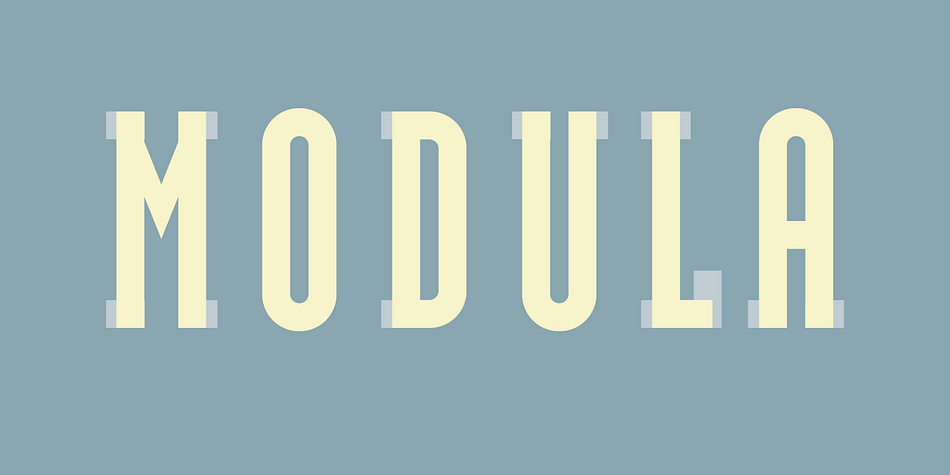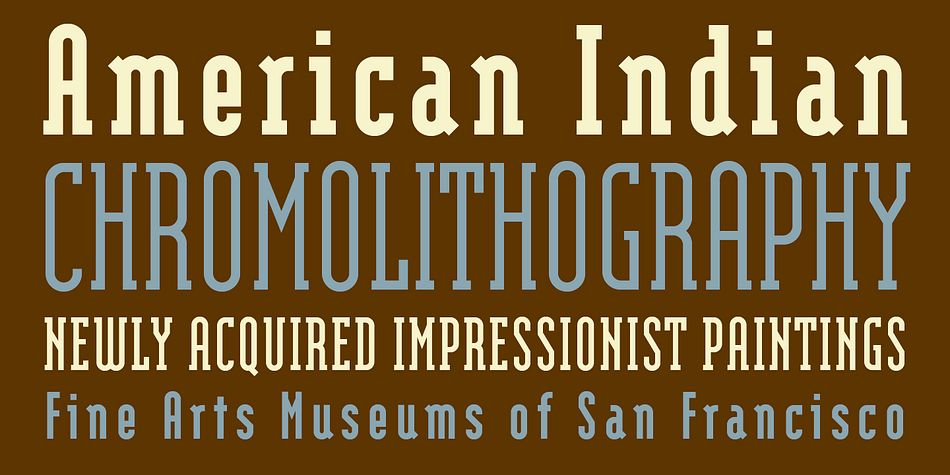
Designed by Zuzana Licko, Modula is a sans serif and slab serif font family. This typeface has seven styles and was published by Emigre.
Modula was the first high resolution headline face that I designed with the Macintosh computer. In 1985, the computer was very crude as far as being able to produce subtle curves, but it was outstanding at producing perfect geometric elements. As a guide, I used the proportions of my earlier Emperor Fifteen bitmap design and applied the precision of the computer’s geometric elements.